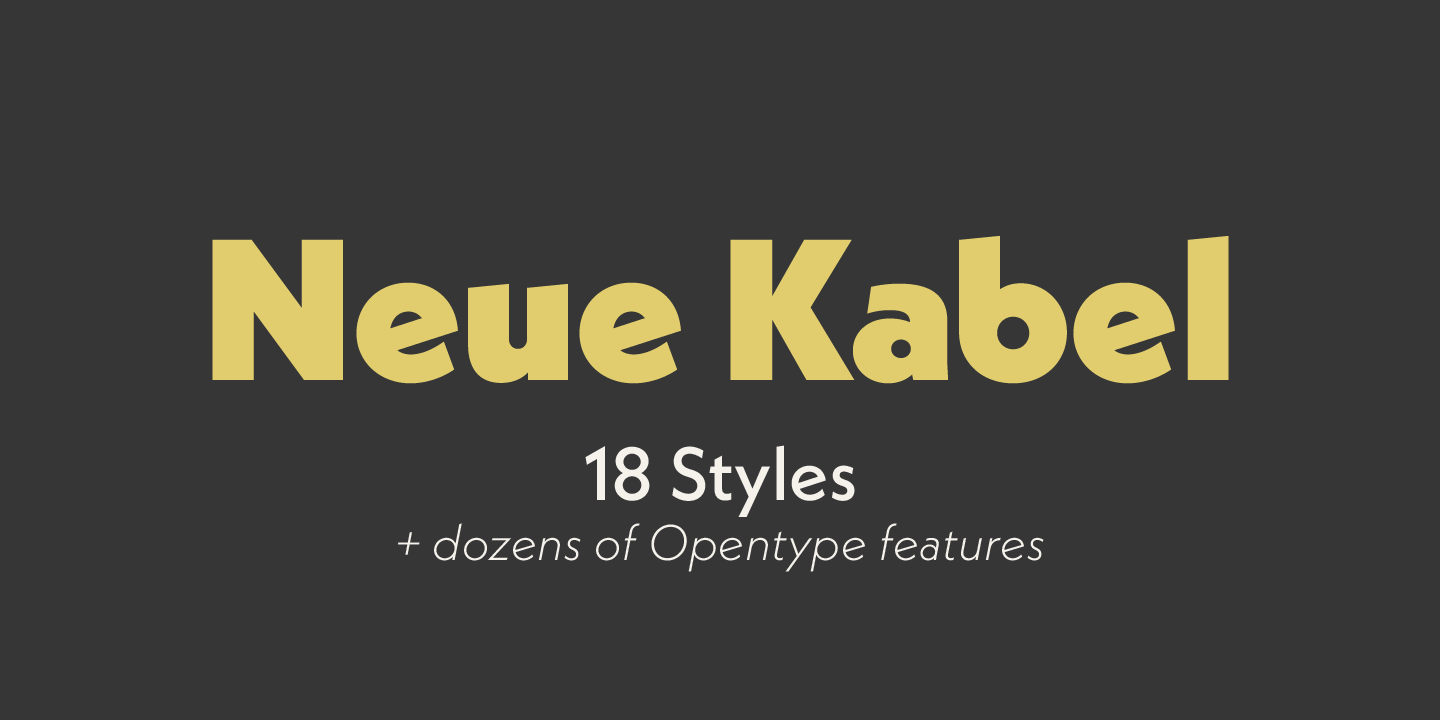
The Neue Kabel Font excels in various design applications including modernist architectural branding, Bauhaus-inspired design projects, contemporary art exhibitions, industrial design communications, progressive technology interfaces, minimalist corporate identities, geometric poster design, cutting-edge editorial layouts, sophisticated web typography, and avant-garde brand systems that demand mathematical precision and German design excellence.
What makes the Neue Kabel Font exciting is its masterful revival of Rudolf Koch's legendary Kabel typeface with contemporary refinements that honor the original Bauhaus design philosophy while meeting modern technical requirements. This typeface represents the pinnacle of geometric typography, featuring perfectly balanced letterforms based on fundamental shapes that create exceptional visual harmony and timeless modernist appeal. The font's systematic design approach makes it ideal for brands seeking to communicate precision, innovation, and design heritage through typography that embodies the principles of functional beauty and mathematical elegance.
The Neue Kabel Font family typically includes comprehensive weight variations from light to heavy, featuring corresponding italic styles and extended character sets with enhanced OpenType features. These family members often include alternate characters, stylistic sets, and specialized glyphs that maintain the geometric integrity while providing designers with extensive customization options for creating sophisticated typographic hierarchies that honor the Bauhaus tradition.
Design professionals and architecture firms consistently select Neue Kabel Font Free Download for projects requiring typography that embodies modernist design principles and German engineering excellence. This typeface delivers exceptional performance in architectural communications, industrial design branding, and contemporary art contexts where geometric purity and design heritage are essential for establishing creative authority. The font's Bauhaus lineage makes it particularly valuable for projects celebrating design history. Download Neue Kabel Font Free Download today to access this remarkable typeface that transforms communications with its geometric perfection and modernist sophistication, creating compelling visual experiences that honor the legacy of functional design while maintaining contemporary relevance and technical excellence.